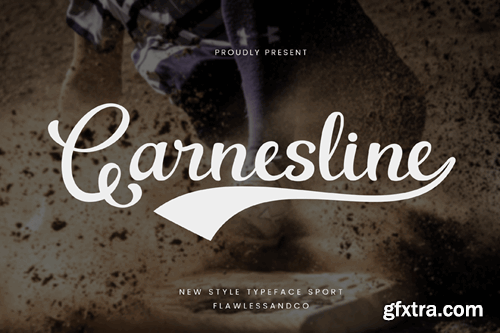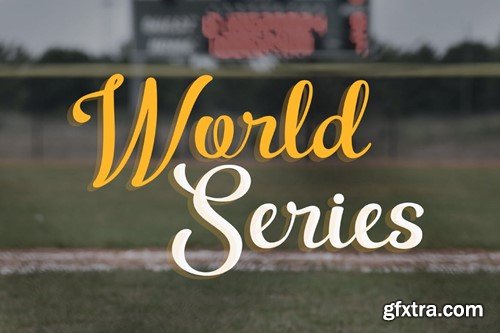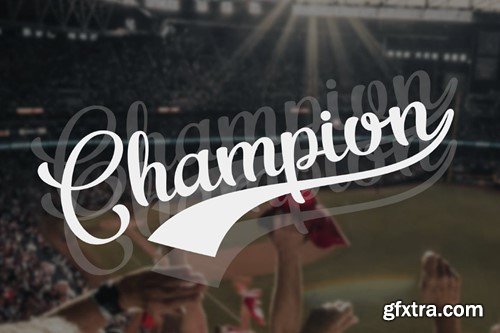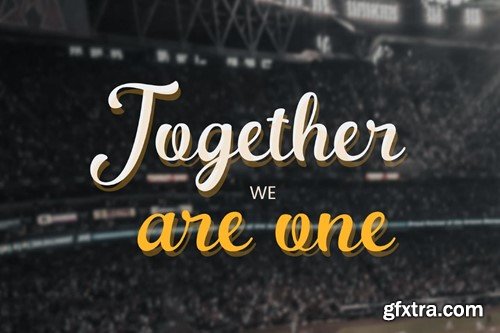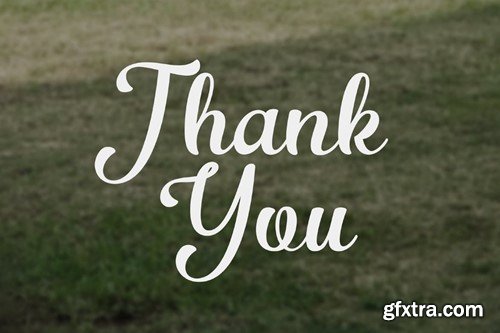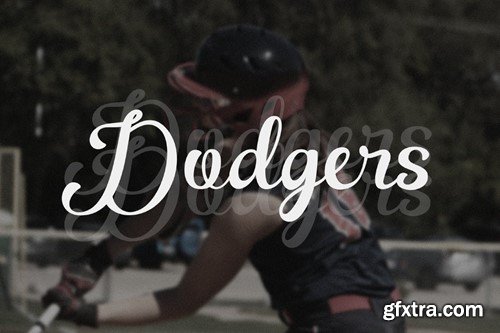
Introducing "Garnesline," a sports baseball font with a script retro-style that brings the timeless elegance and nostalgic charm of sports to your designs. Perfect for sports branding, team jerseys, promotional materials, and more, Garnesline captures the spirit of pastime with its stylish and fluid letterforms. Included: Features : Multilingual Uppercase alphabet A-Z Lowercase alphabet a-z Numbers 0-9 Some punctuation NOTE: For all the characters are also available, accessible in the Adobe Illustrator Glyphs Panel, or in Adobe Photoshop Character Open Type Panel. If you need help, just write me! Thanks so much for checking out my shop! ----------------------------------------------- HOW TO USE FONT : (connected letters, swirls, heart, swashes, diamond) for the first, install the .otf file and open fontbook/character map, find the font and you can copy and paste the heart letters from fontbook/character map to your text. Thanks, Flawless and co.